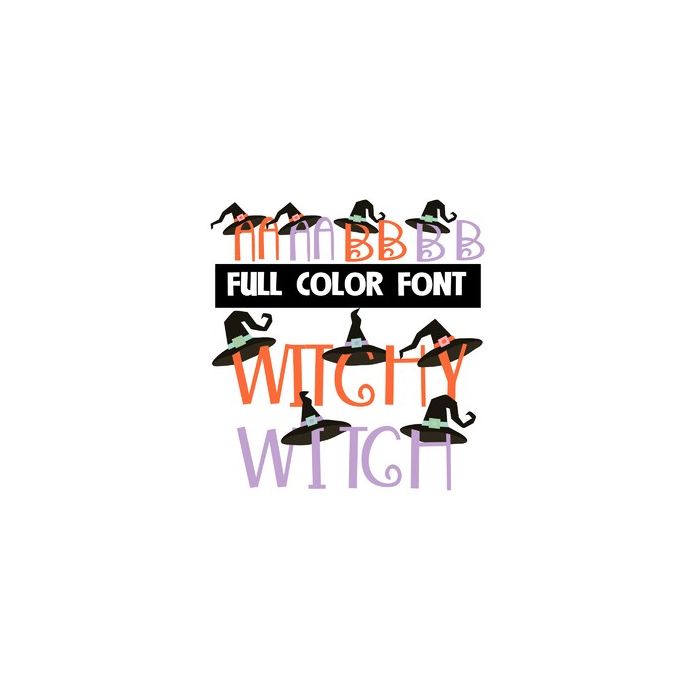
This full-color font features witch hats on the uppercase and a lowercase without. There is an alt case in purple you can access through your system or Silhouette's glyph map.